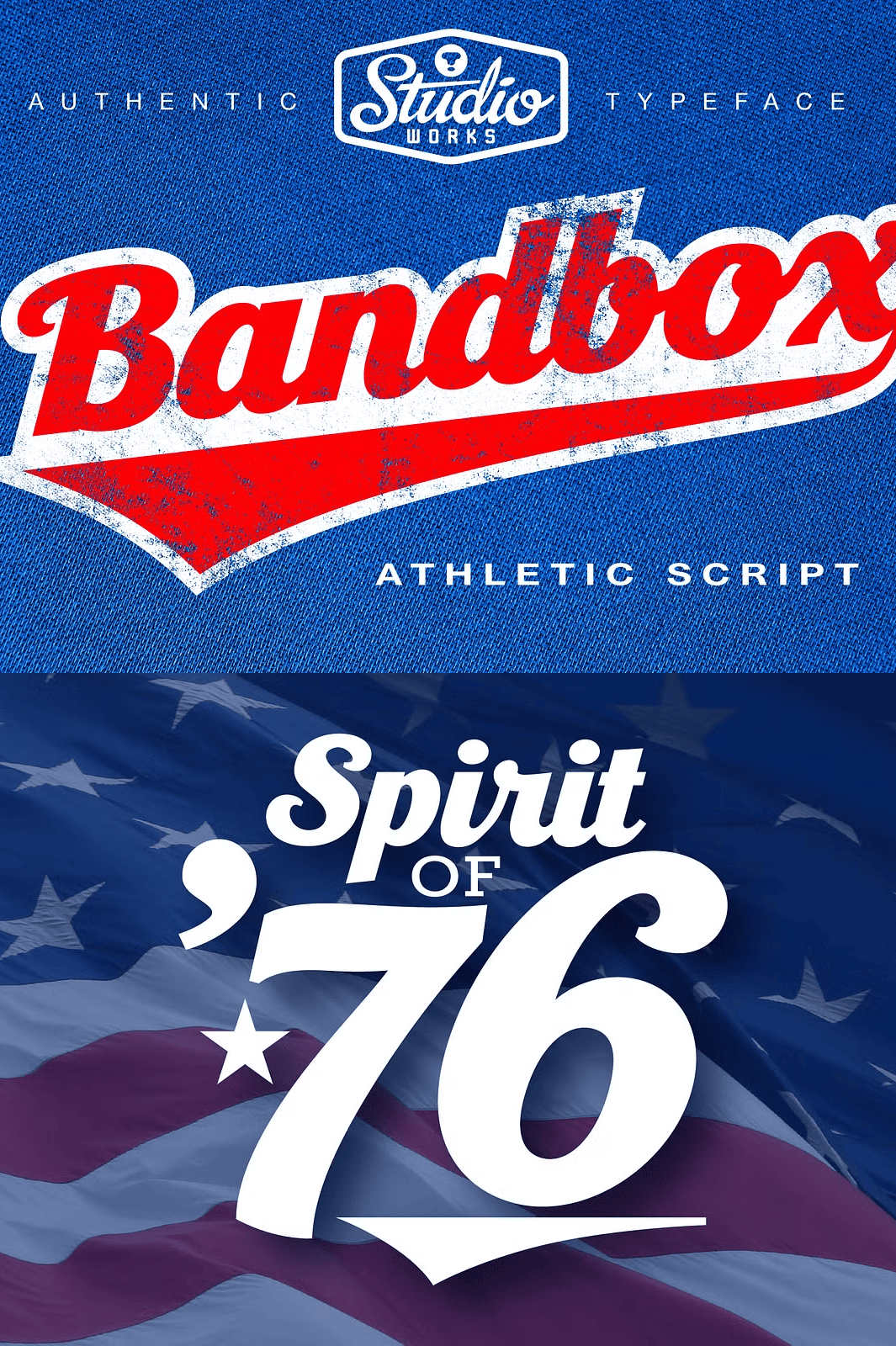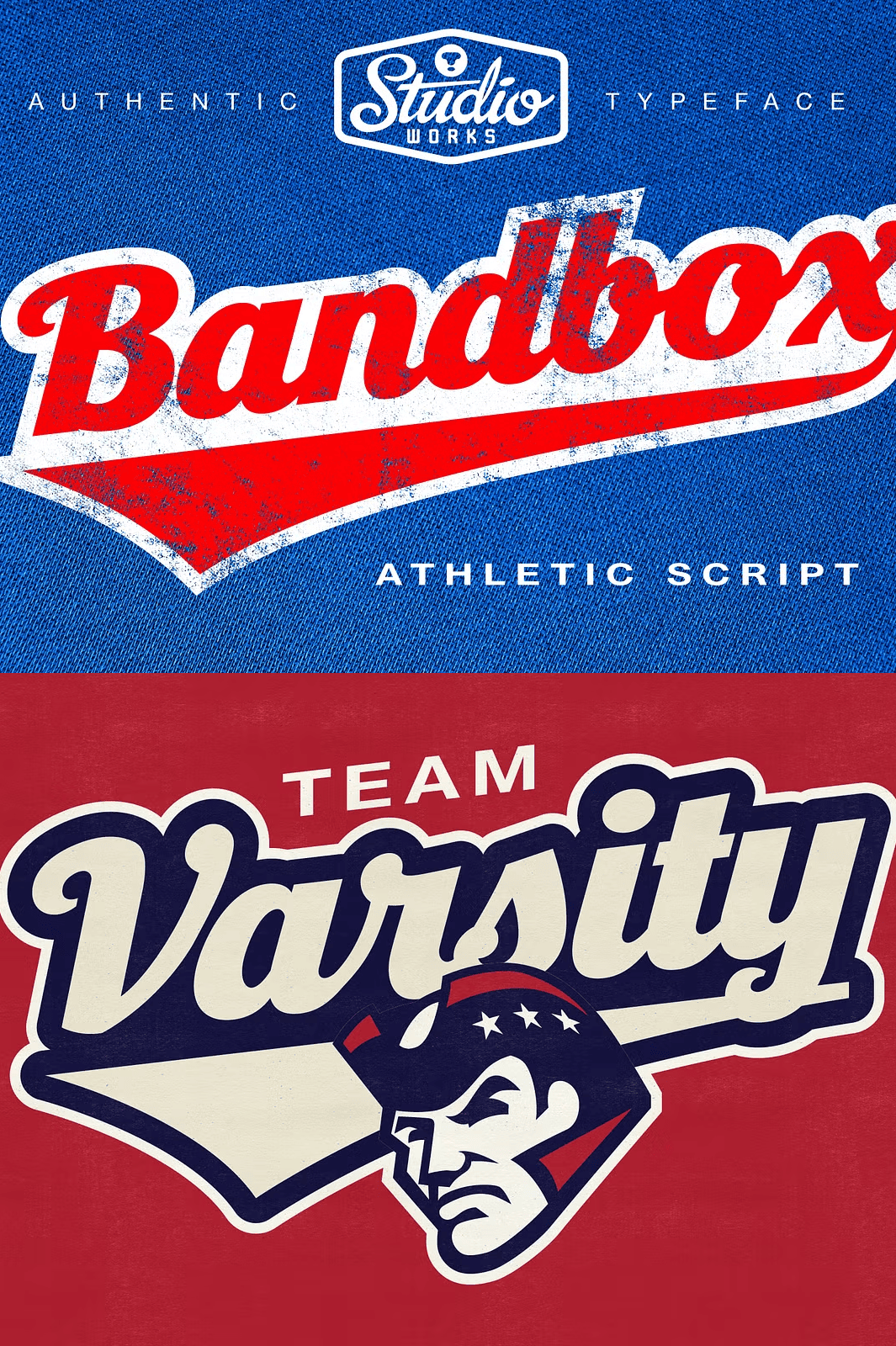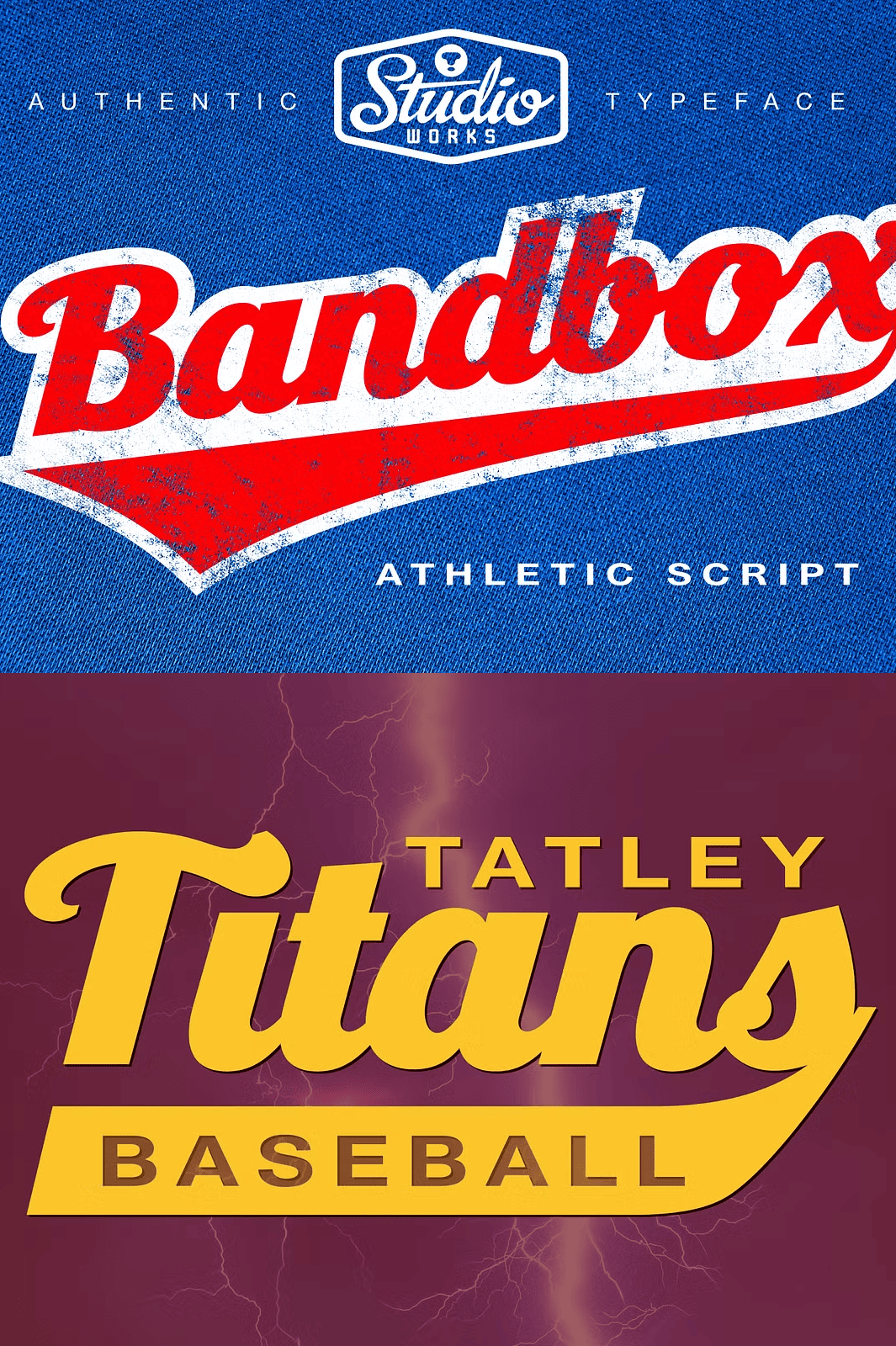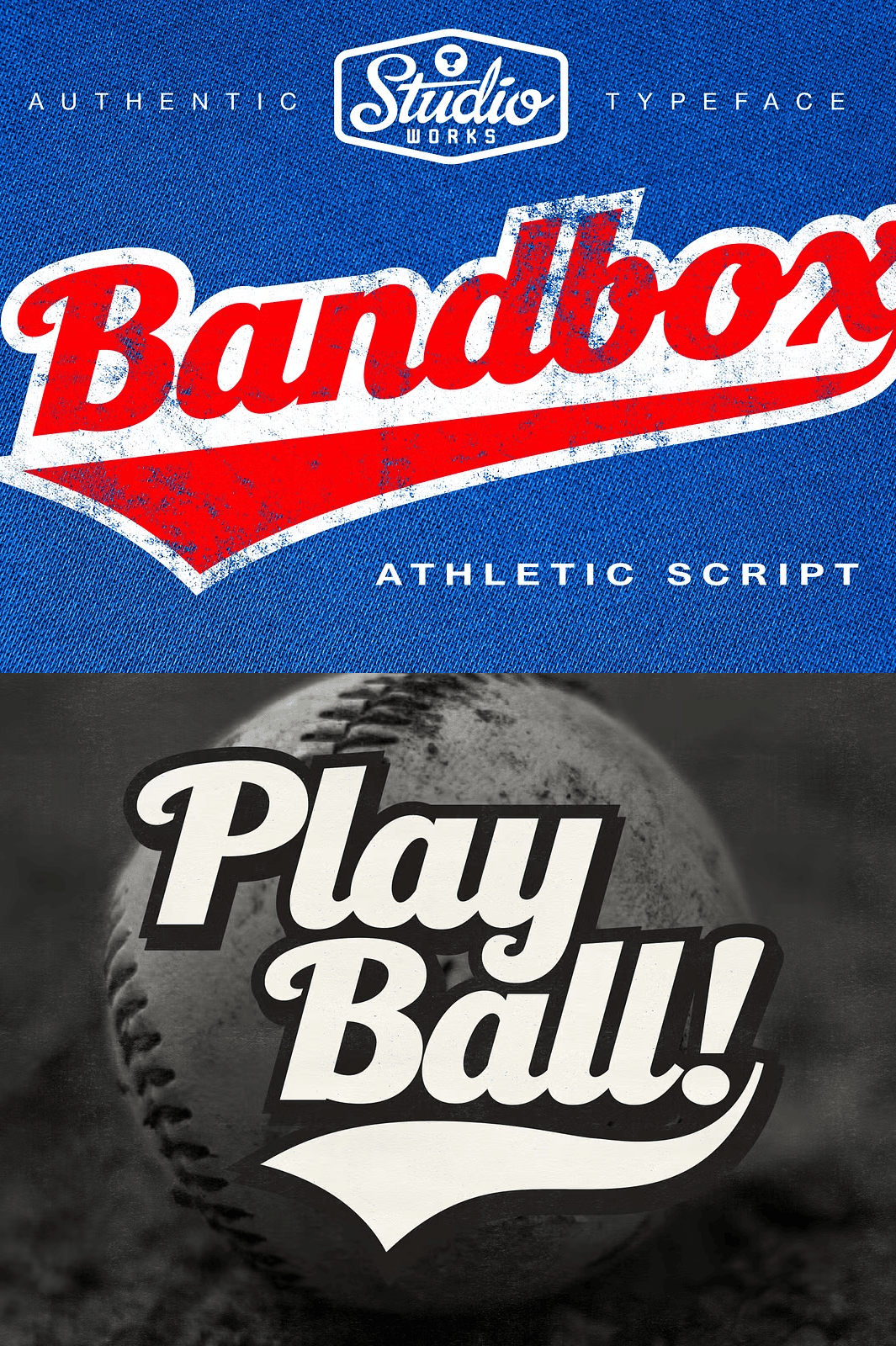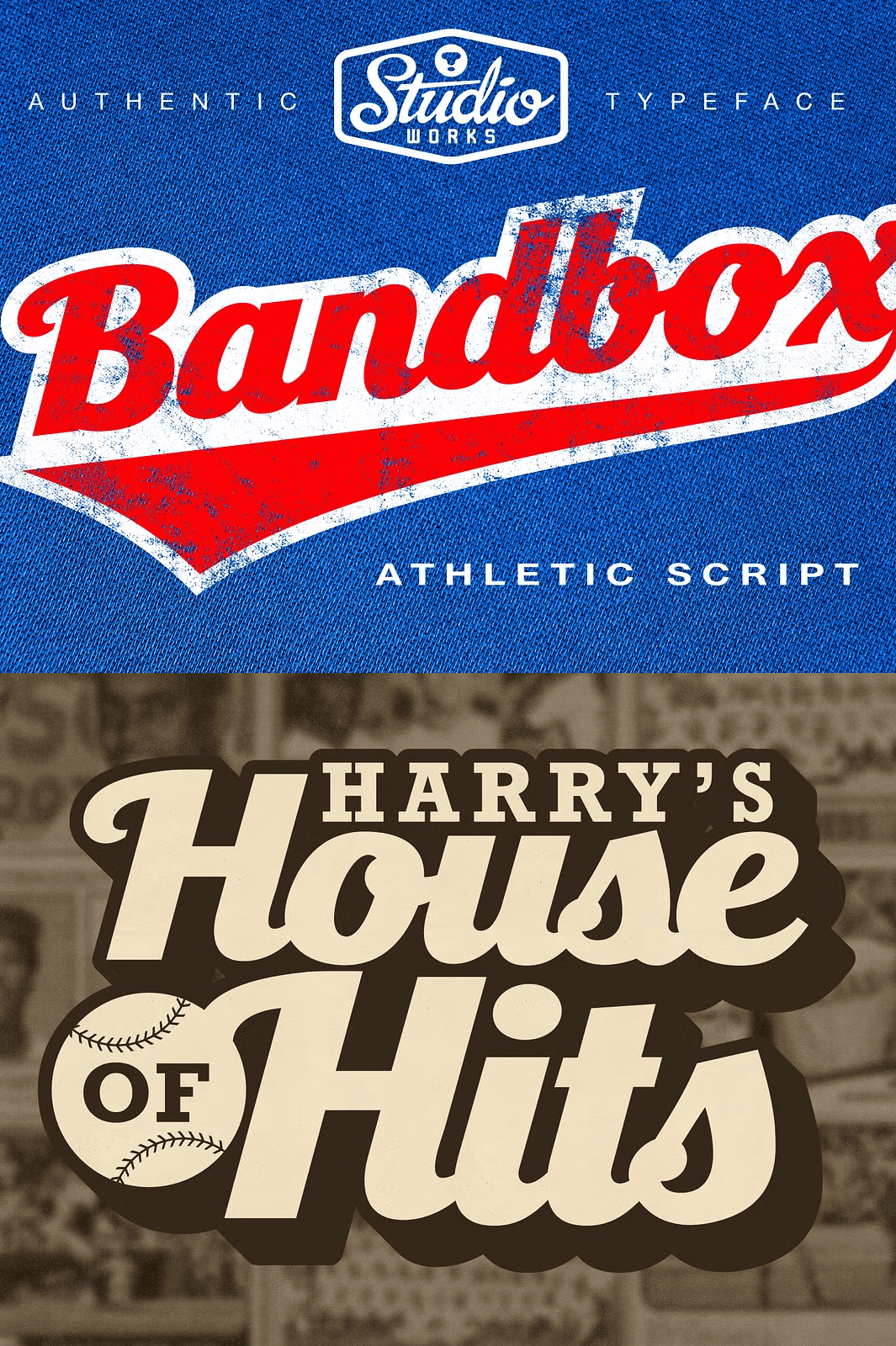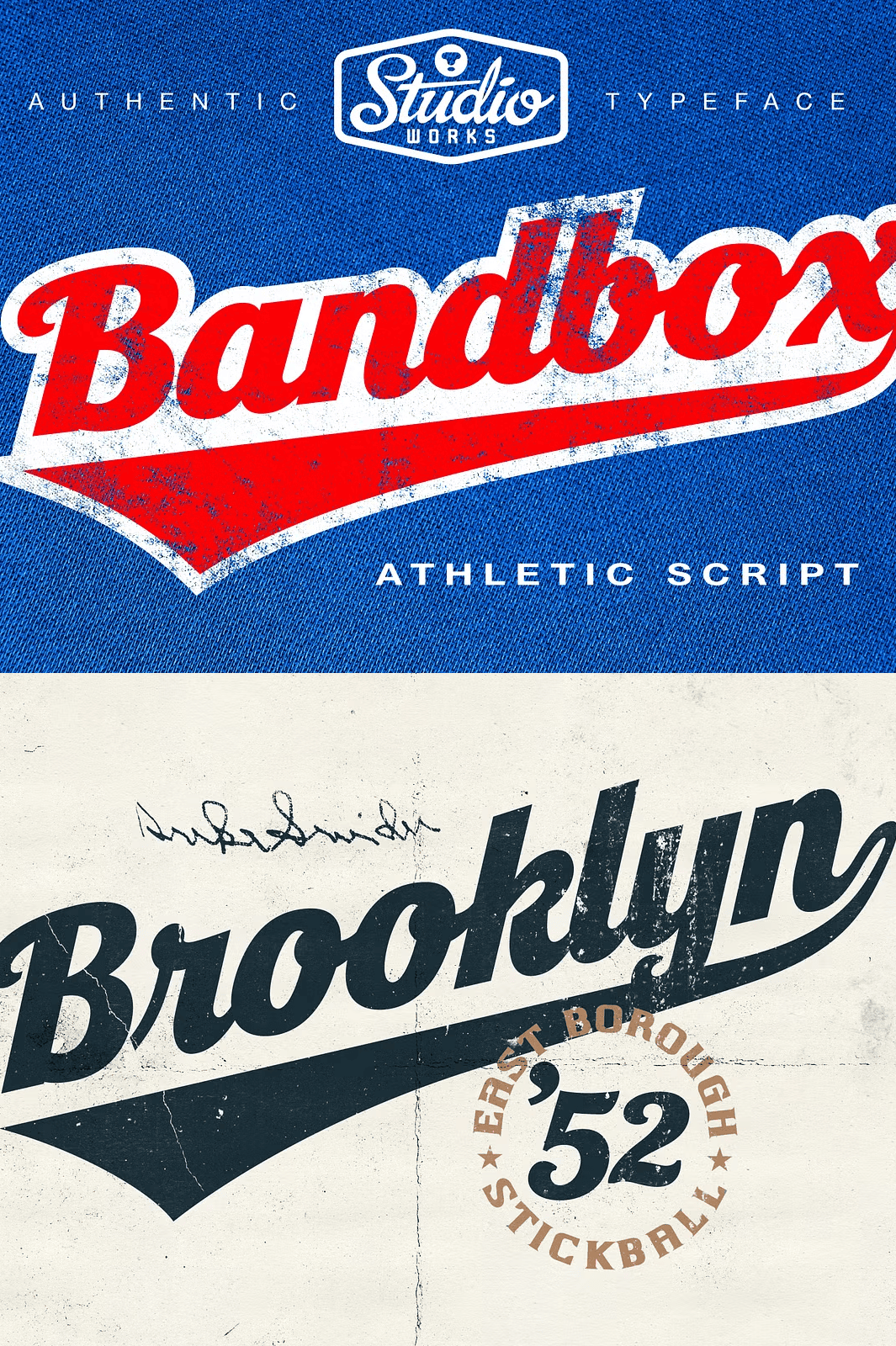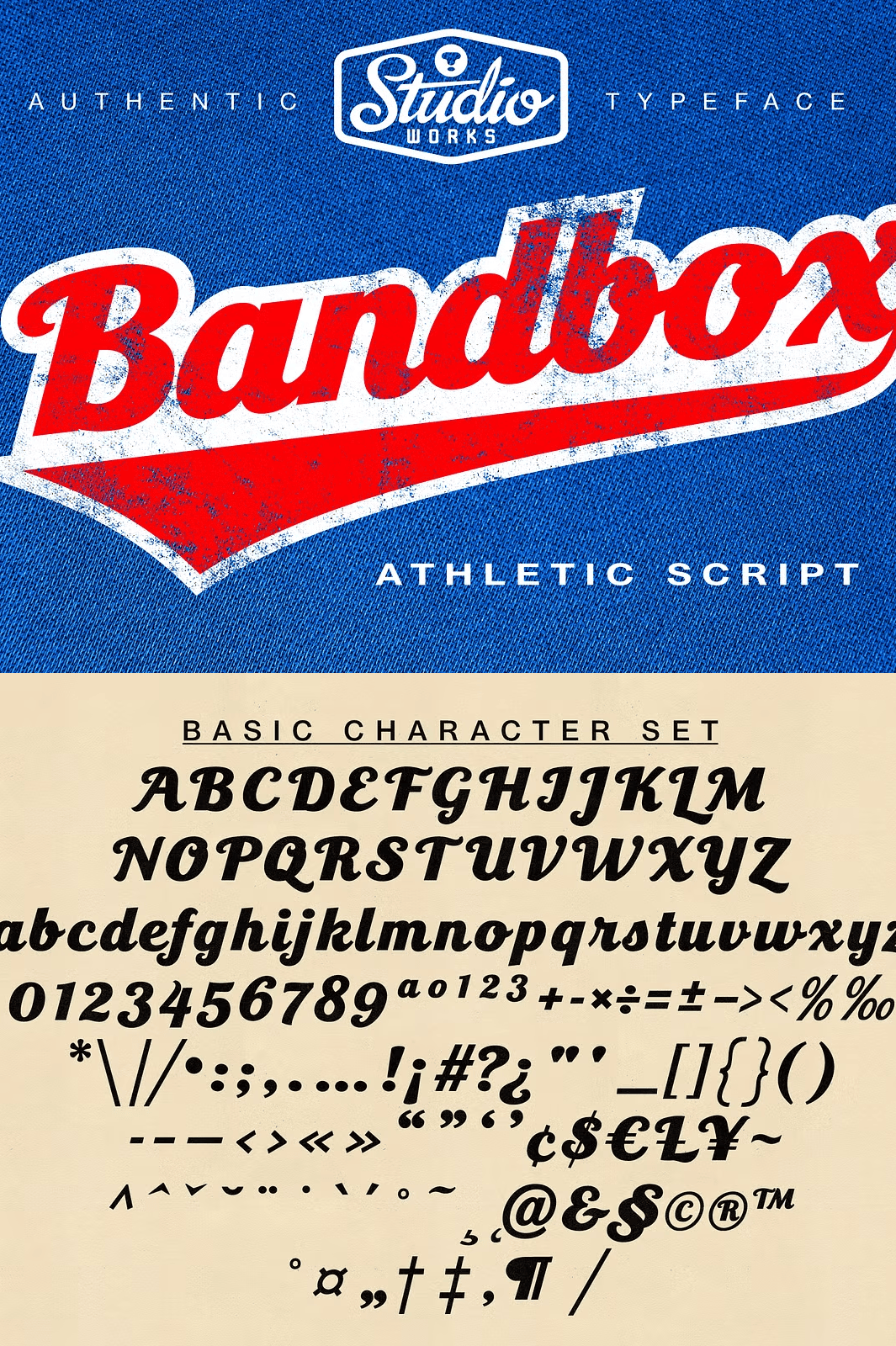
Command the Spotlight with Bold, Dynamic Script Design
Ignite your creative fire with **BANDBOX**—a fearless, heavy-weight athletic script typeface crafted for power, motion, and unforgettable impact. Designed with the spirit of classic sports logos in mind, BANDBOX delivers bold, streaming cursive letterforms that command attention. Its wide, gently sloped structure gives every word a sense of momentum, making it ideal for dynamic branding, high-energy posters, and eye-catching apparel.
Whether you’re designing for a competitive sports team, a lifestyle athletic brand, or a streetwear label, BANDBOX injects every project with raw energy and authentic character. No longer just text—this is **visual storytelling in motion**.
Unleash a Complete arsenal of Professional-Grade Features
BANDBOX is engineered for designers who demand excellence and precision. Here’s what you get:
– **18 Athletic Swash Banners:** Amplify your logo or message with dramatic, high-impact swash elements—perfect for team names, mottos, or promotional headlines.
– **Extensive Ligature Set:** Ensure fluid, professional-looking text with smart ligatures that mimic real handwriting and enhance readability.
– **Rich Selection of Alternates & Swashes:** Add visual variety and rhythm using stylistic alternates and swash forms—customizable for each project.
– **Full Multilingual Support:** Works seamlessly across global markets with support for Latin-based languages, including English, Spanish, French, German, Italian, and more.
Design with Power, Precision, and Purpose
Maximize performance across every project:
– **Perfect for Logotype & Brand Identity:** Build a strong, memorable presence with a script that speaks volume. BANDBOX turns brands into movements.
– **T-Shirt & Apparel Design Powerhouse:** Generate bold, dynamic designs that stand out on fabric—ideal for team gear, fan merch, and urban fashion.
– **Poster & Print Campaigns:** Deliver high-impact messaging that grabs attention instantly in posters, billboards, and print ads.
– **Digital Media & Social Graphics:** Enhance YouTube thumbnails, Instagram posts, and Twitch overlays with high-energy typography.